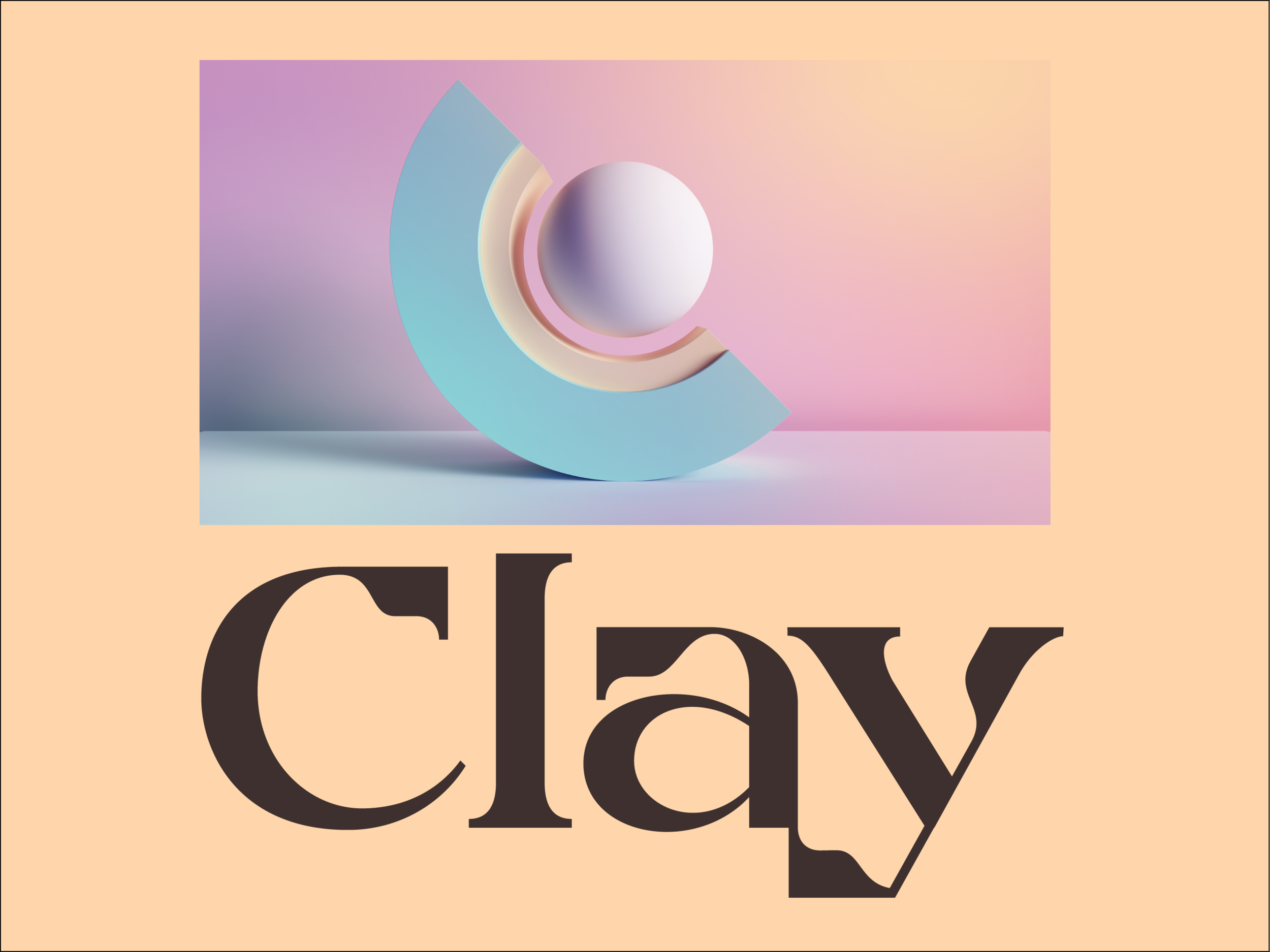
Clay is a bold, single-weight slab serif typeface inspired by advertising typography of the 19th century. Clay brings the typographic past of victorian broadsides, pamphlets and signs into the present.